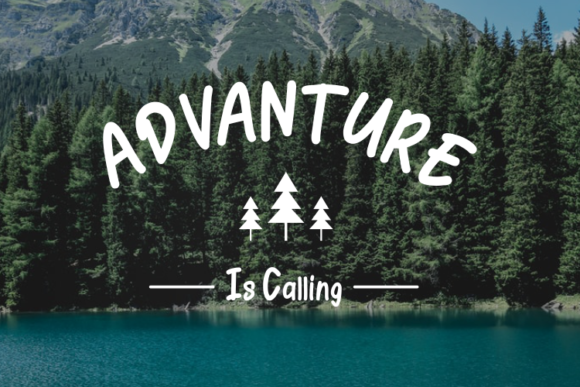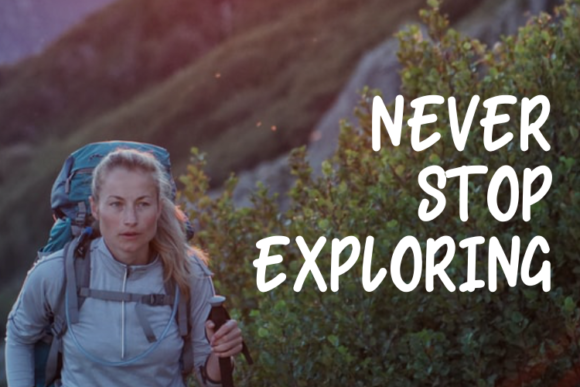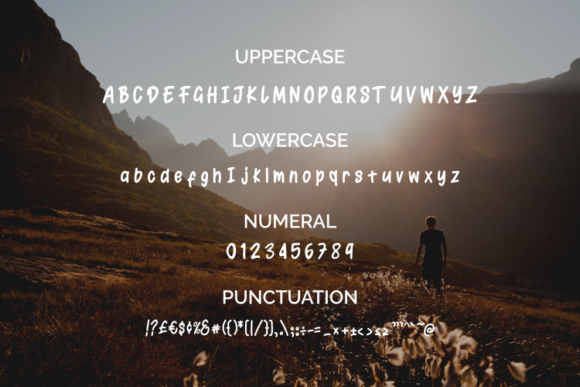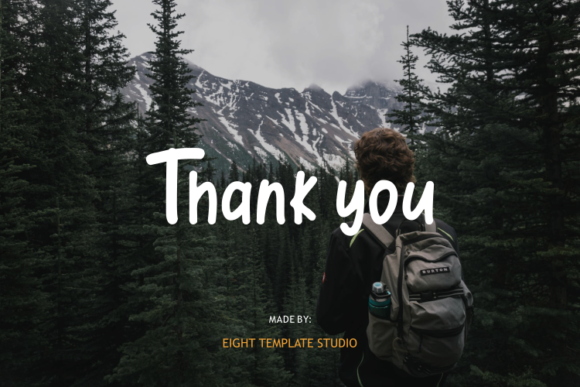
About Gealliea Font
Gealliea is a sweet and friendly handwritten font. Its natural and unique style makes it incredibly fitting to a large pool of designs. The only limit is your imagination!